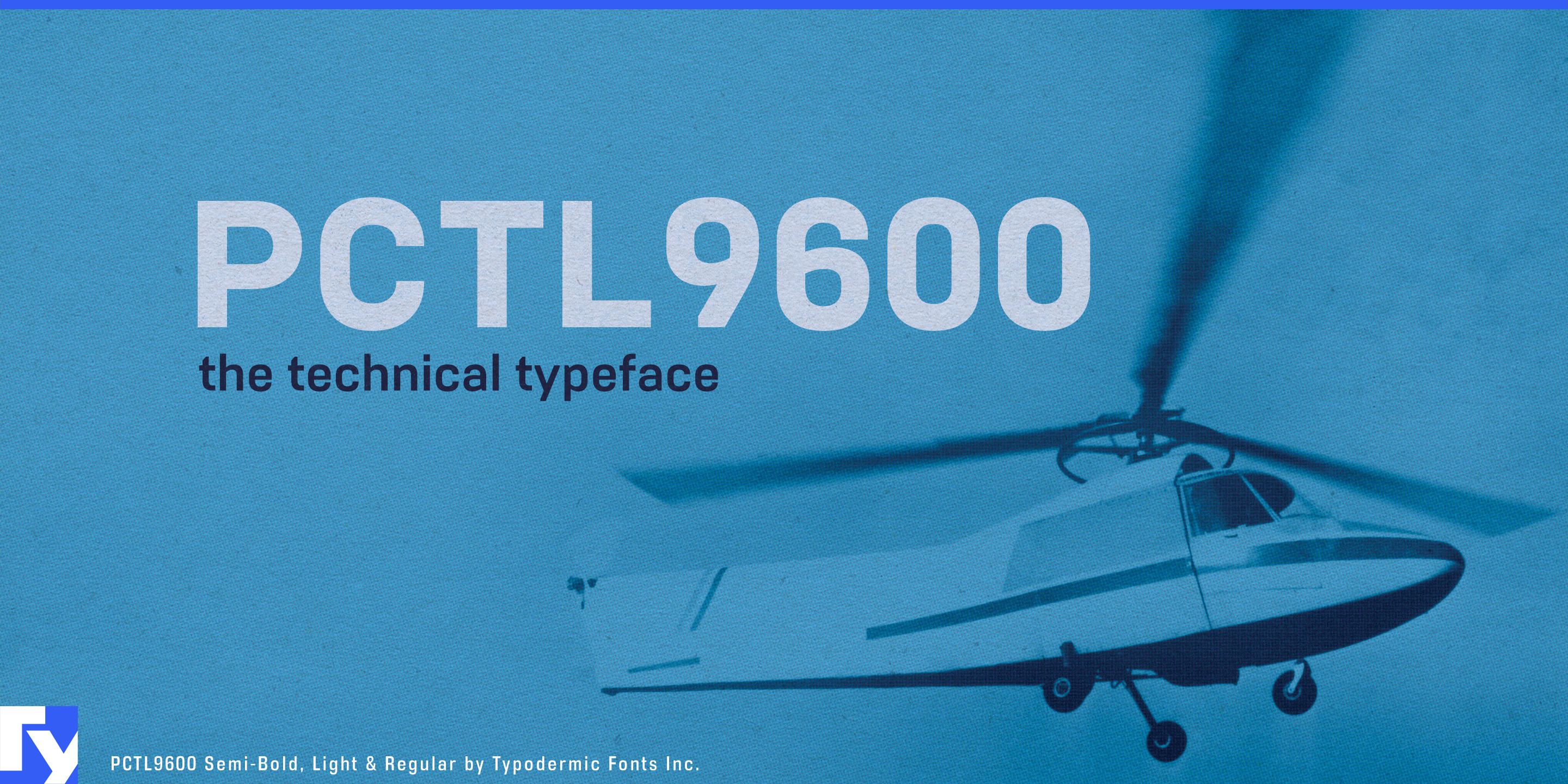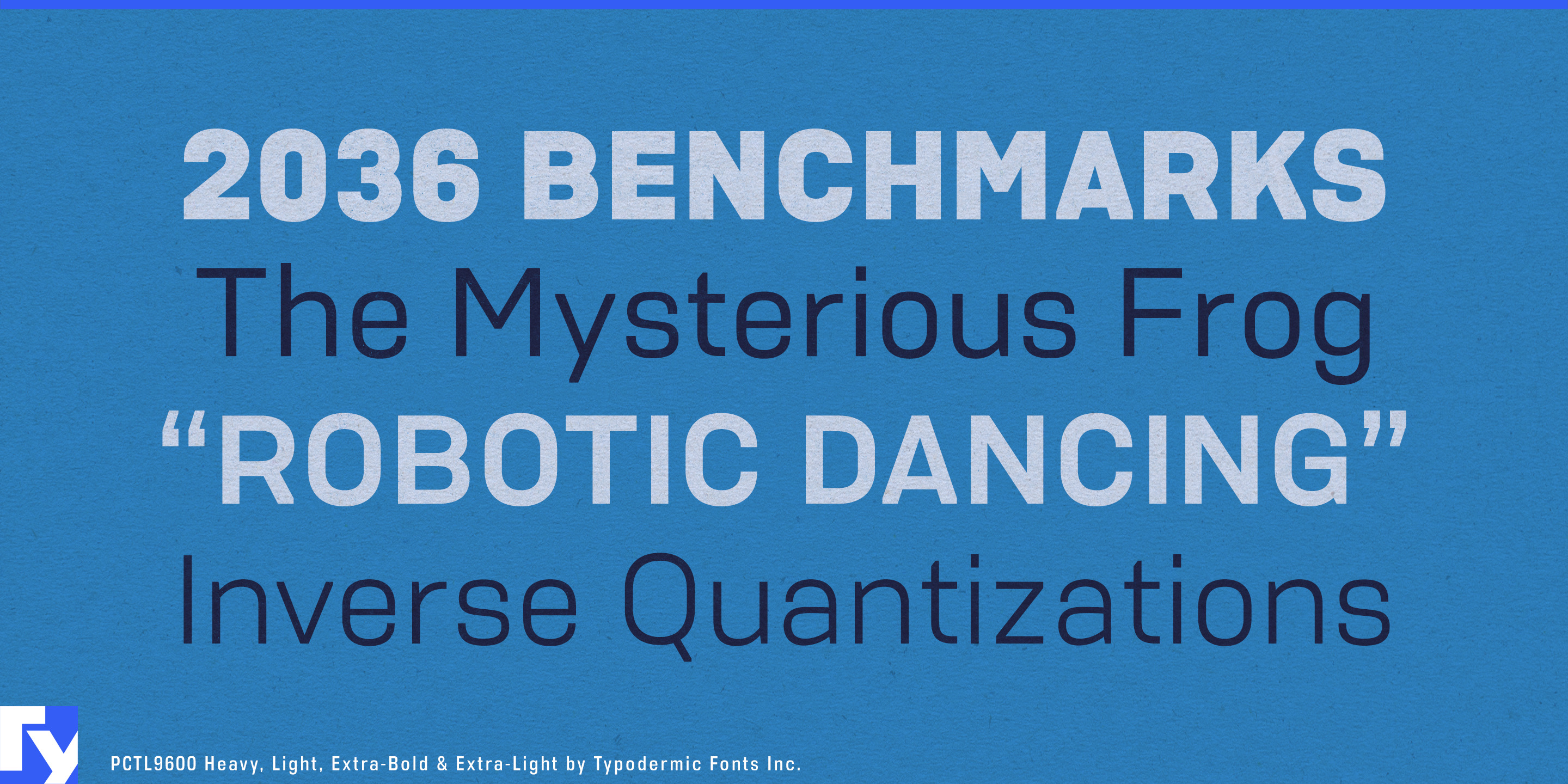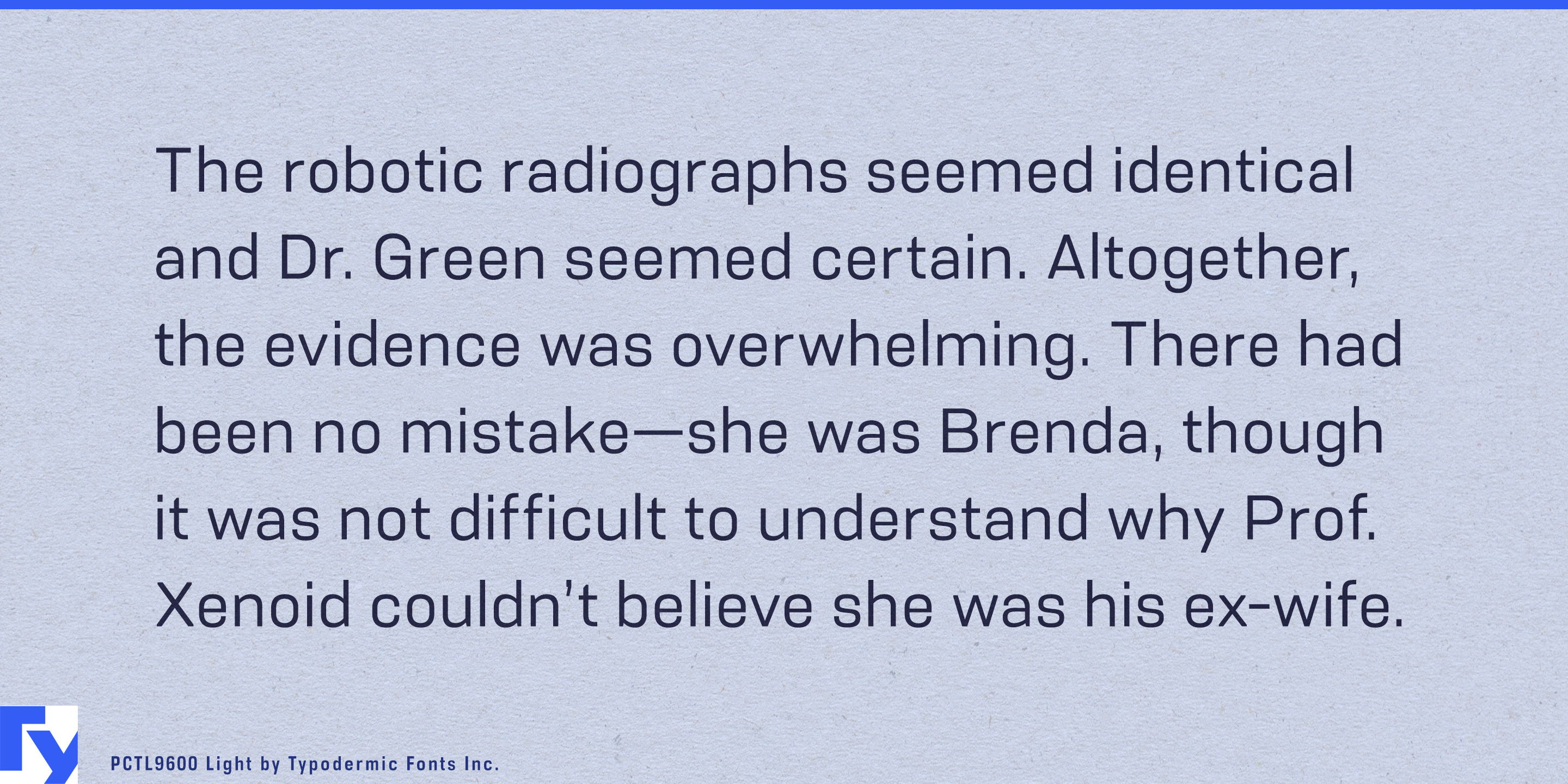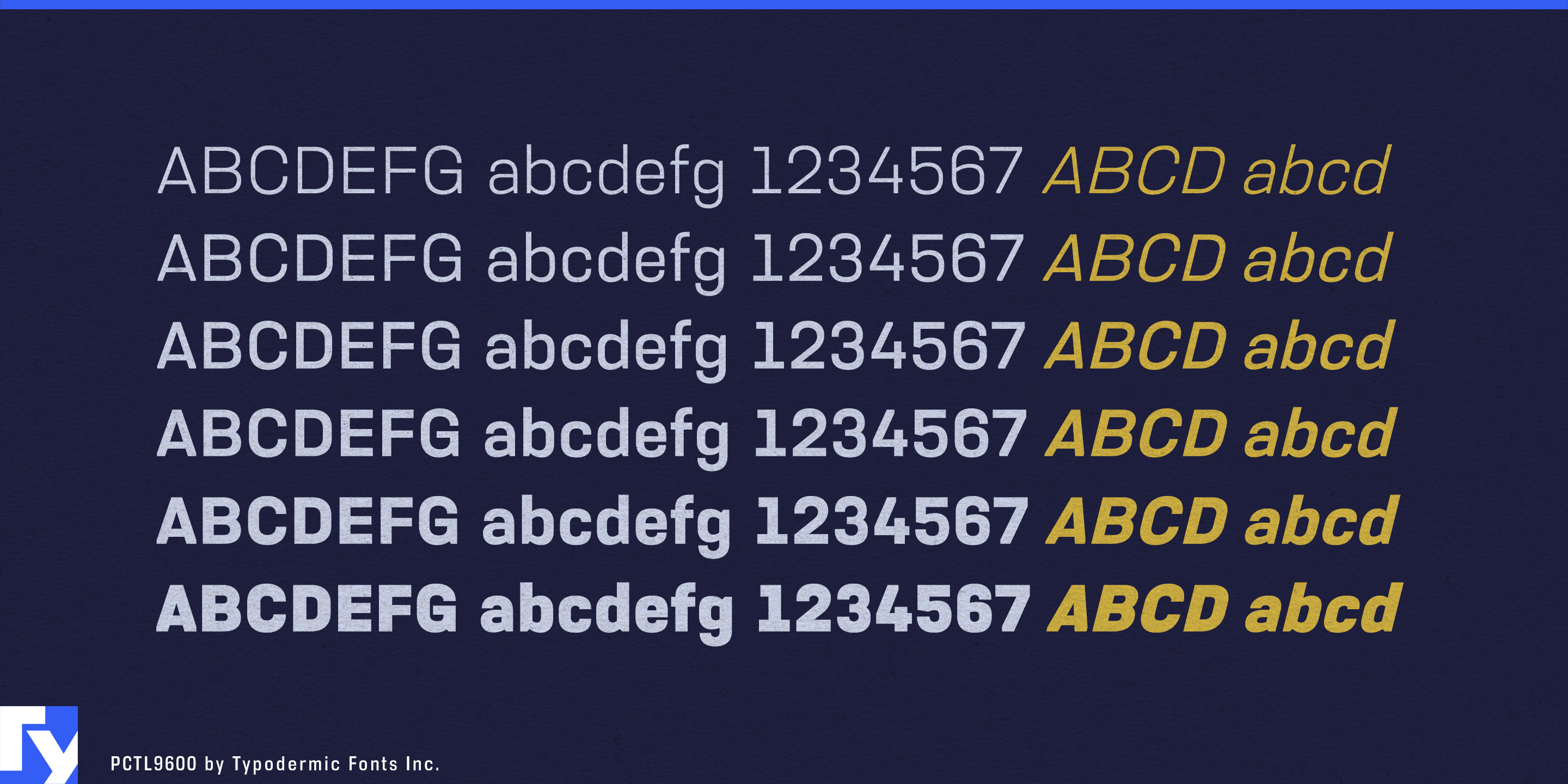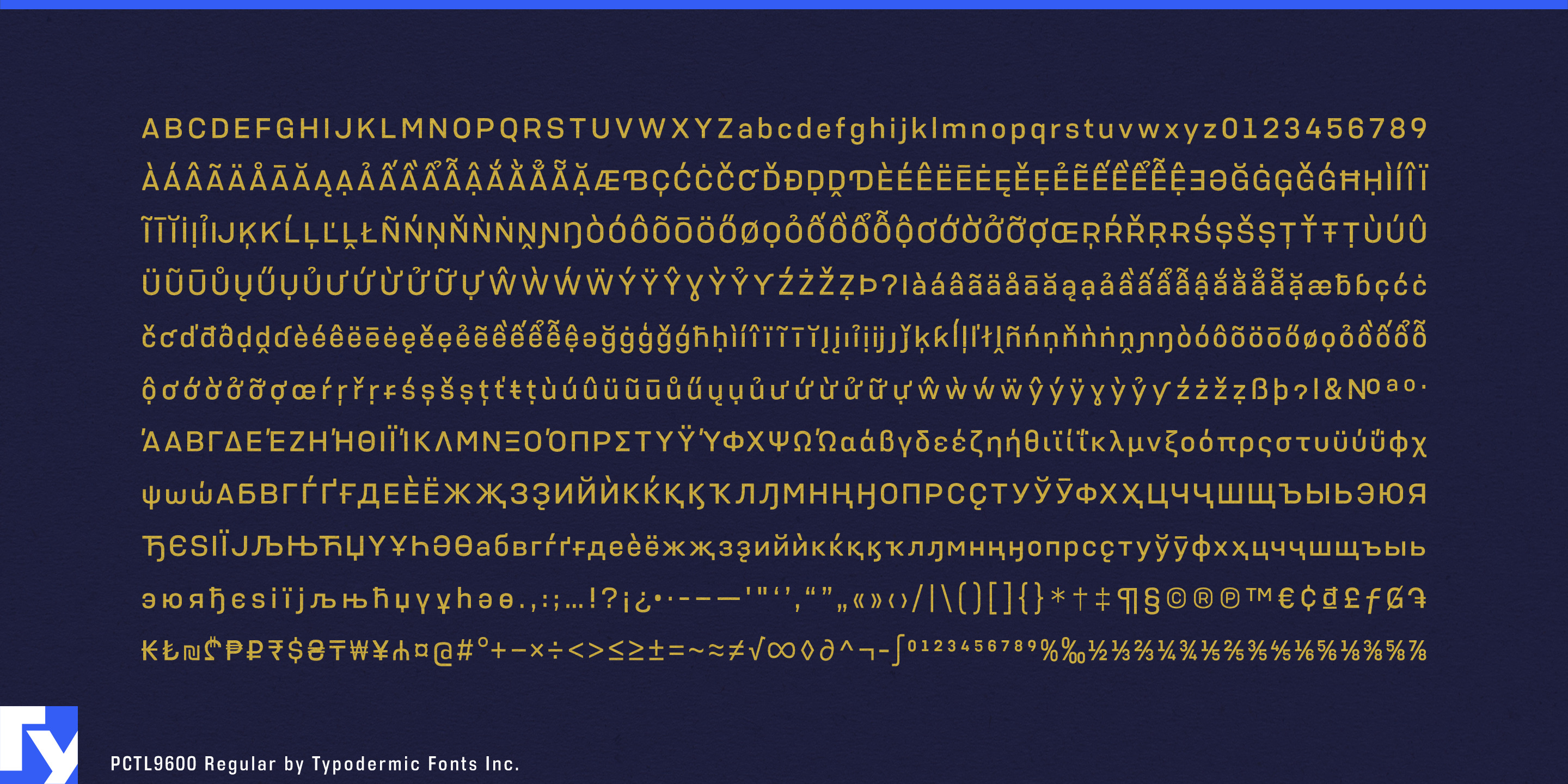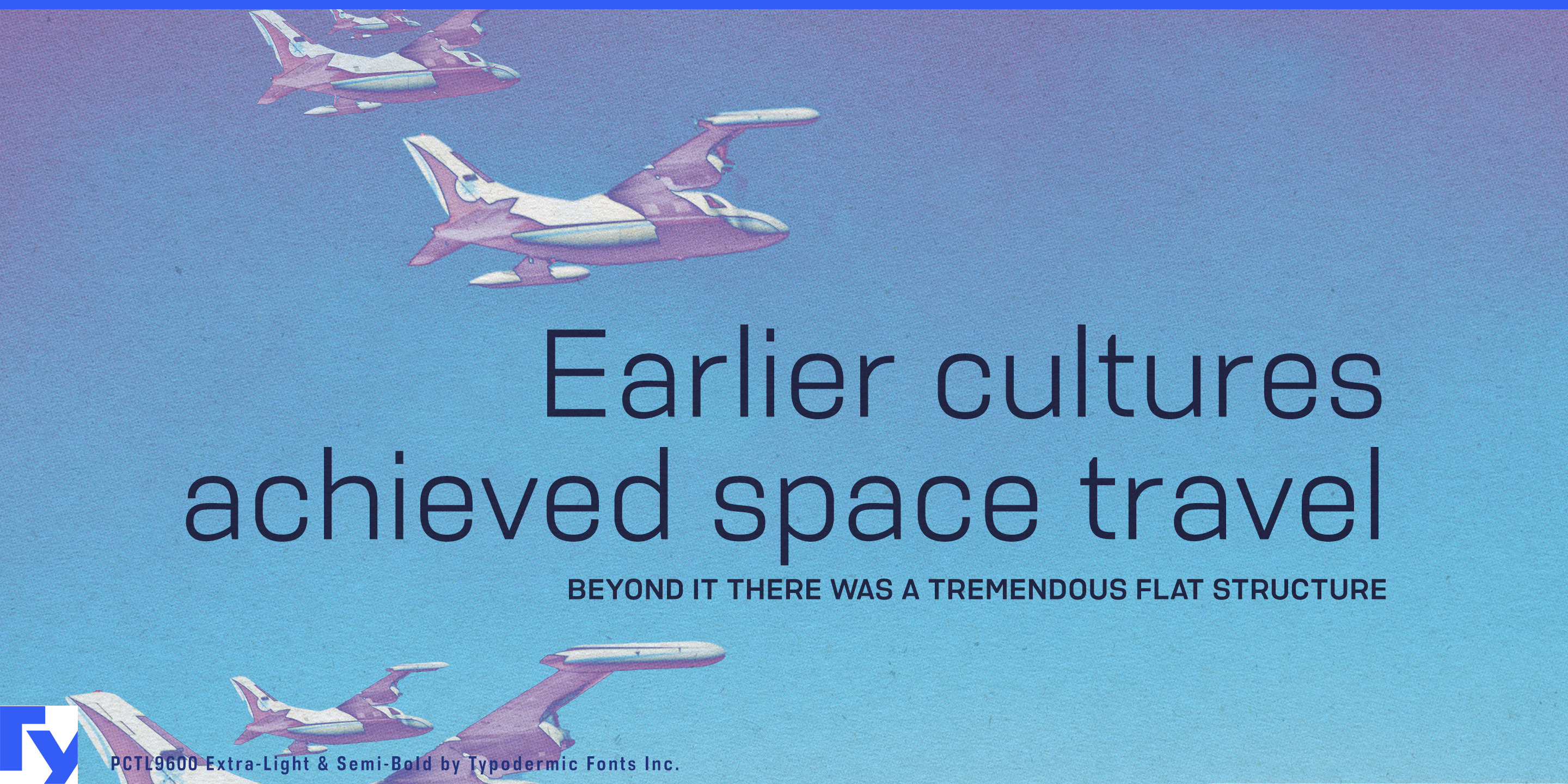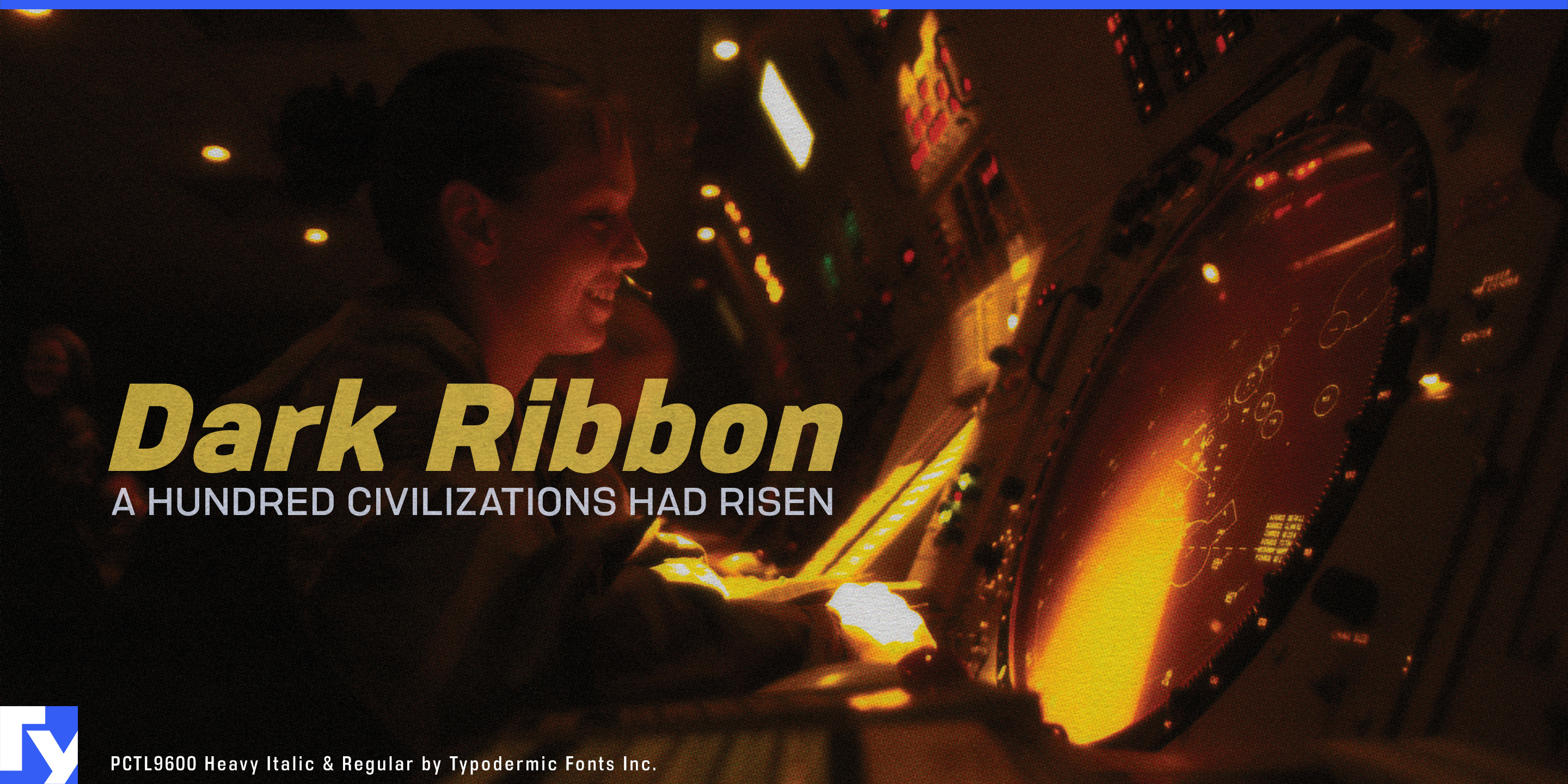
PCTL9600 shares its origins with PCTL4800—commissioned for a high-profile video game project as a DIN-inspired sans-serif with a forward-looking twist. While PCTL4800 carries its signature corner index notch, PCTL9600 strips away that detail for a clean, unembellished finish. The result is a typeface that retains the same technical precision and geometric discipline, but in a form that’s understated and universally applicable.
Built for environments where clarity is paramount, PCTL9600 handles the demands of modern design with ease. Six weights with matching italics ensure a full typographic toolkit, from light, airy captions to assertive headlines. Its optical balance and restrained proportions make it just as effective in small-scale UI elements as in large-format editorial layouts.
With broad language coverage—including most Latin-based European languages, Vietnamese, Greek, and an extensive range of Cyrillic—PCTL9600 is fluent in the language of global communication. It’s a smart choice for designers who value the precision and efficiency of DIN but want something tailored for today’s multi-platform, multi-lingual design challenges.